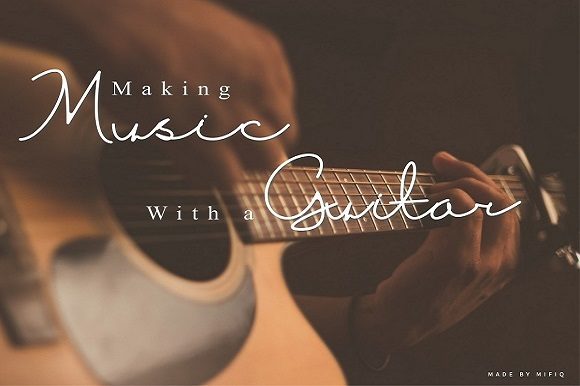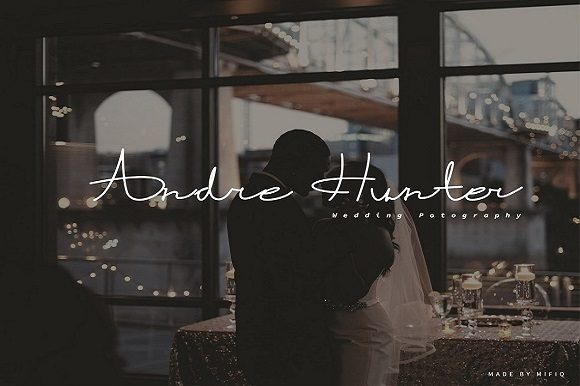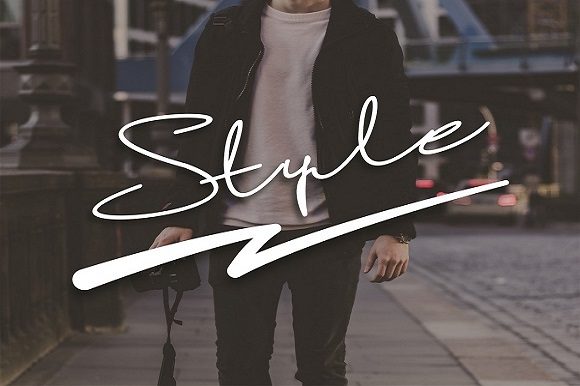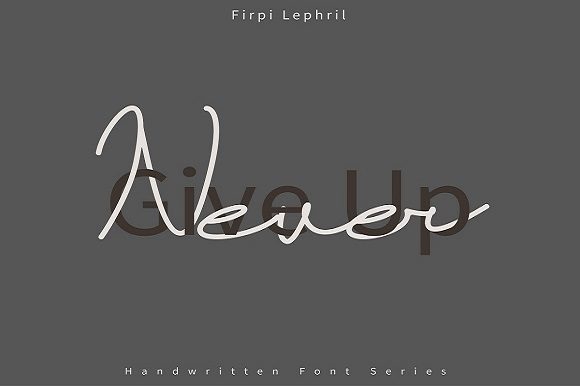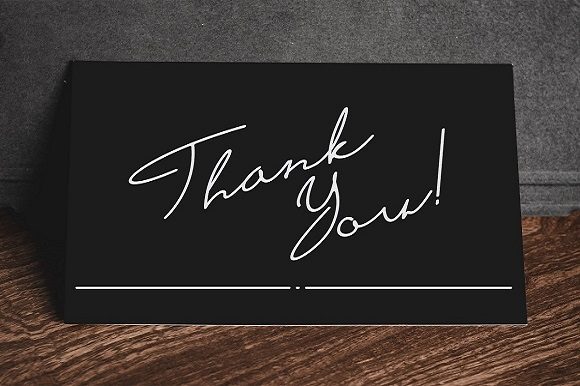
About Firpi Lephril Font
Firpi Lephril sounds like a beautiful and elegant handwritten font that can add a touch of sophistication and charm to a wide range of design projects. With its flowing and distinct style, it offers versatility and timeless appeal for various creative endeavors. Here are some ideas on how to use Firpi Lephril font to create spectacular designs:
1. Wedding Invitations: Use Firpi Lephril font to design romantic and luxurious wedding invitations that captivate recipients and set the tone for the special day.
2. Greeting Cards: Create heartfelt and elegant greeting cards for birthdays, anniversaries, holidays, or any occasion, using Firpi Lephril font to convey warmth and sincerity.
3. Quotes and Typography Art: Incorporate Firpi Lephril font into typographic artwork featuring inspirational quotes, motivational phrases, or meaningful messages.
4. Branding and Logos: Use Firpi Lephril font for logos and branding materials to add a personal and sophisticated touch to businesses or personal projects.
5. Social Media Graphics: Design eye-catching social media graphics, posts, stories, or cover images using Firpi Lephril font to engage and attract viewers.
6. Book Covers: Incorporate Firpi Lephril font into book titles or author names on book covers to create an alluring and timeless design.
7. Personal Stationery: Create personalized stationery sets featuring Firpi Lephril font for a refined and elegant writing experience.
8. Event Invitations: Design invitations for special events, parties, or gatherings with Firpi Lephril font to add an element of sophistication and elegance.
9. Art Prints: Use Firpi Lephril font to create art prints with beautiful lettering or calligraphy for a captivating and stylish look.
10. Web Design: Incorporate Firpi Lephril font into website headers, titles, or navigation menus to add a touch of elegance and class to web designs.
11. Blog Headers: Use Firpi Lephril font in blog headers and featured images to give blogs a sophisticated and polished appearance.
12. Magazine Covers: Design magazine covers using Firpi Lephril font to create an alluring and captivating design.
13. Flyers and Brochures: Use Firpi Lephril font in flyers and brochures for an elegant and attractive layout.
14. Packaging Design: Incorporate Firpi Lephril font into product labels, tags, or packaging designs to add a touch of sophistication and elegance.
15. Digital Artwork: Use Firpi Lephril font in digital art pieces, illustrations, or digital collages to enhance the artistic appeal of the designs.
16. Restaurant Menus: Create restaurant menus with Firpi Lephril font to elevate the dining experience with an elegant and refined look.
17. Calendars: Design visually appealing calendars using Firpi Lephril font for a chic and timeless presentation.
18. Business Cards: Use Firpi Lephril font to design stylish and professional business cards that leave a lasting impression on clients and contacts.
19. Packaging Design: Use Firpi Lephril font to create elegant and sophisticated labels, tags, or stickers for gift packaging or craft projects.
20. Personal Journals: Incorporate Firpi Lephril font into personal journals for a delightful and graceful writing experience.
In summary, Firpi Lephril font’s flowing and elegant style makes it an excellent choice for a wide range of design projects. Its distinct and timeless appeal adds sophistication and charm to any creative endeavor. Whether it’s wedding invitations, branding, social media graphics, or personal stationery, Firpi Lephril font is sure to help you create spectacular designs that stand out and leave a lasting impression on your audience.